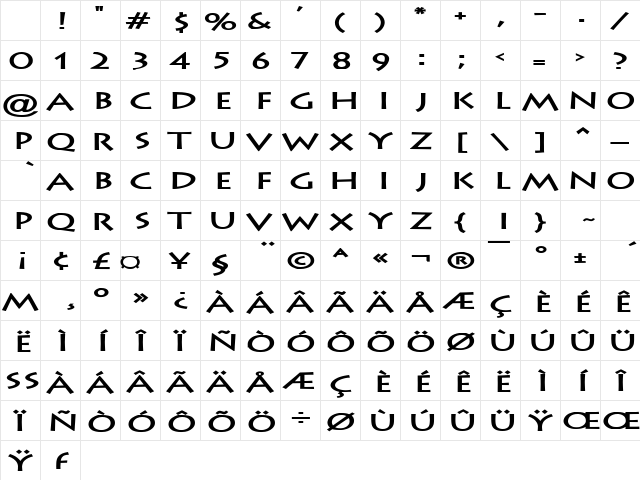
Complete Liste Extended Bold glyph index. Displaying only characters natively supported by Liste Extended Bold font.
Liste Extended is a composed and adaptable typeface that performs quietly and consistently across a wide range of design contexts. Its bold stroke weight gives it real presence on the page.